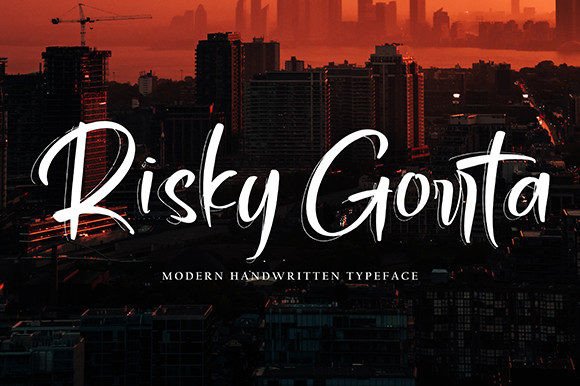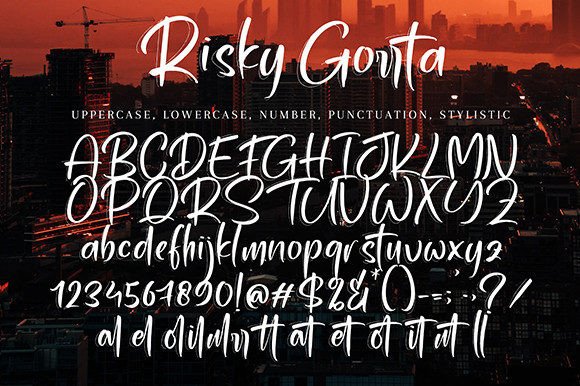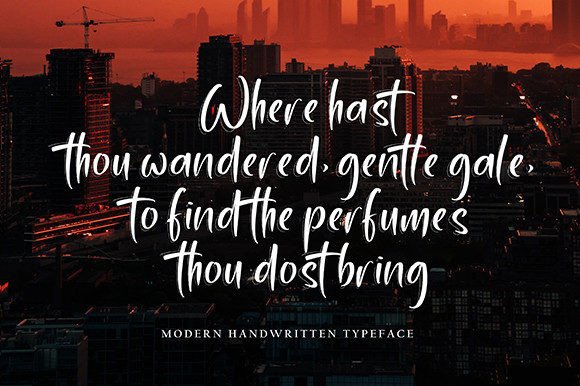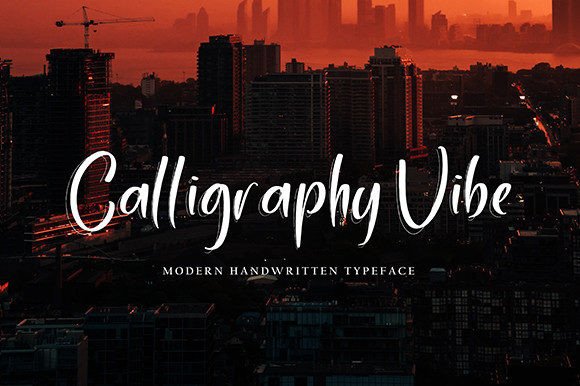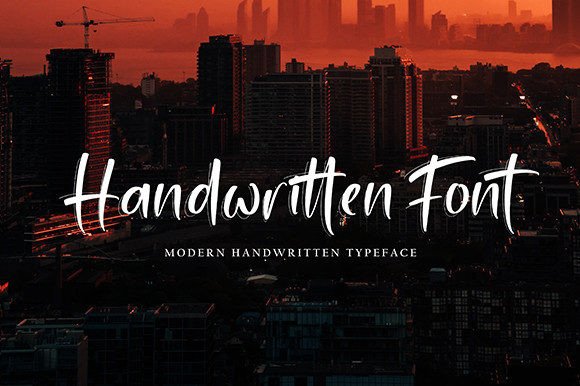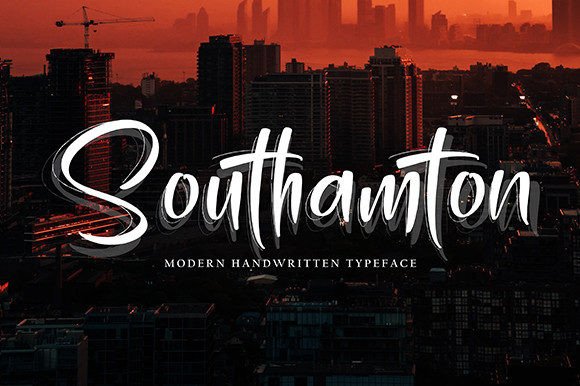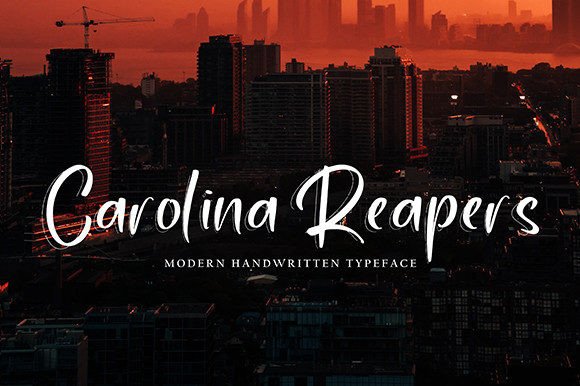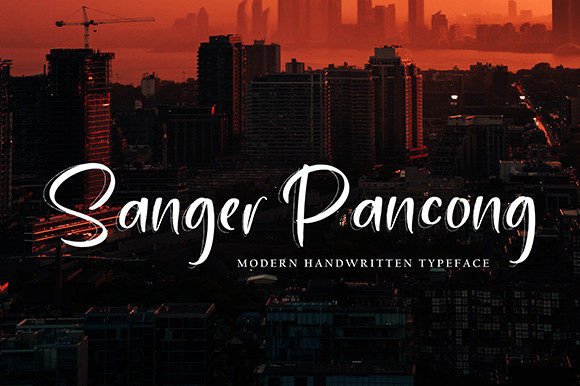
Risky Gorrta Font
Risky Gorrta is a handwritten font with a new style. It is perfect for many different projects such as quotes, logos, blog headers, posters, banding, letters, invitations, stationery, etc.